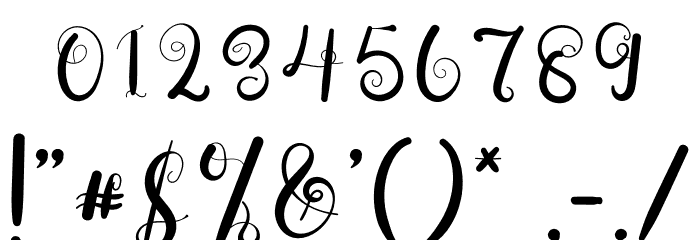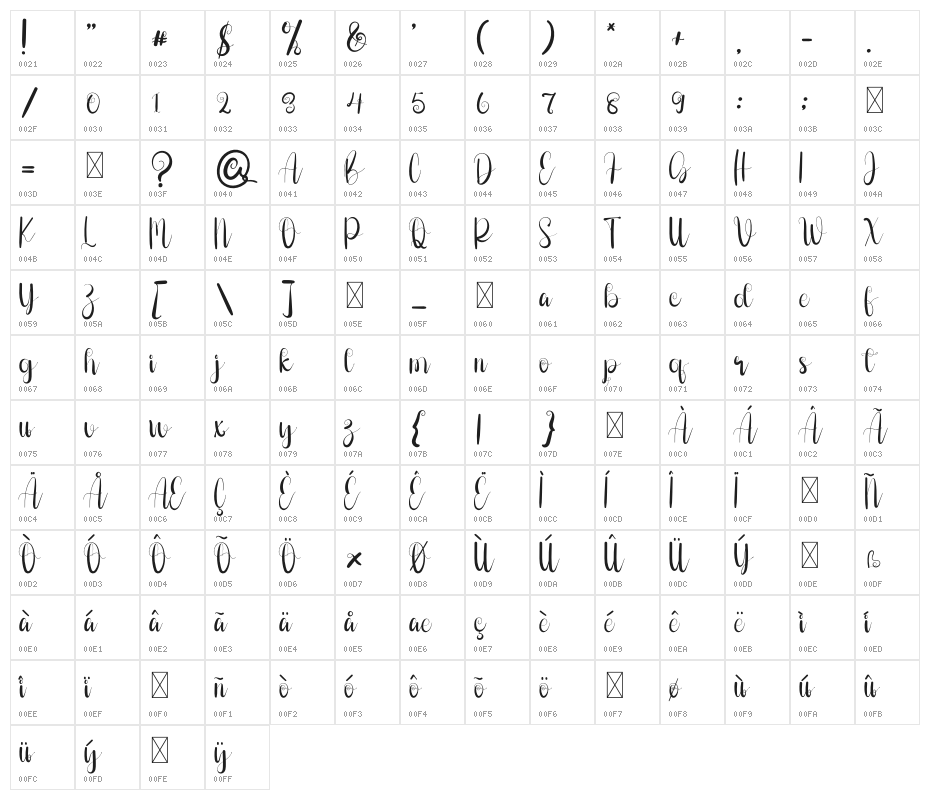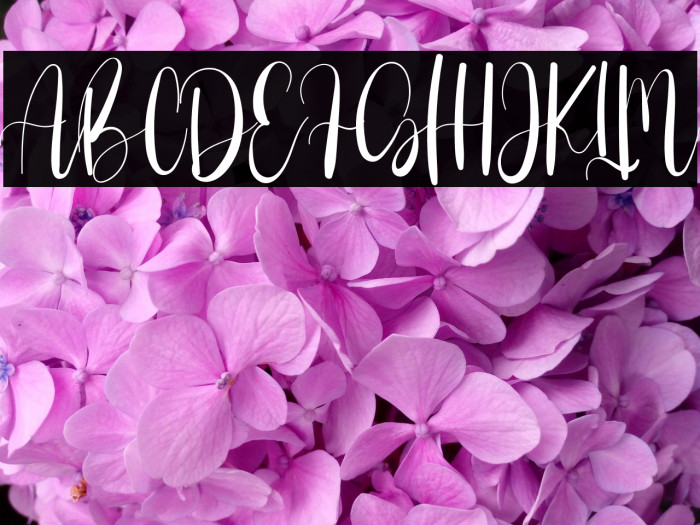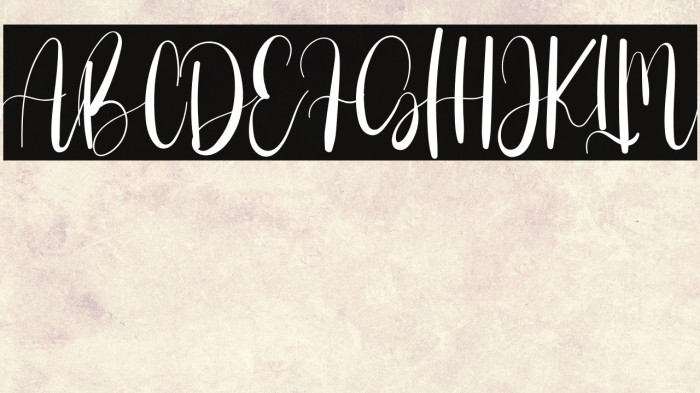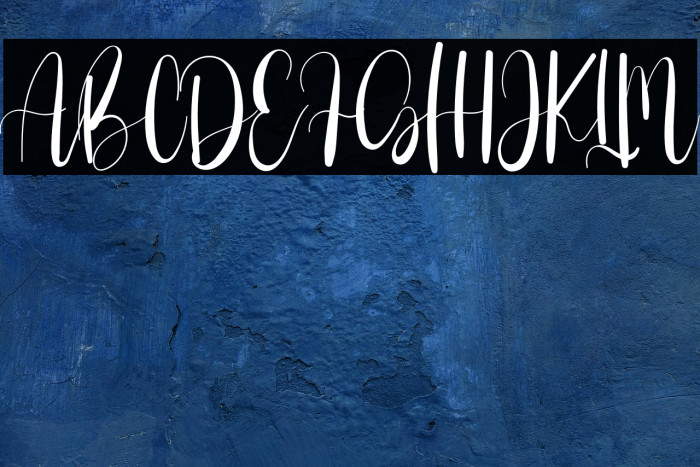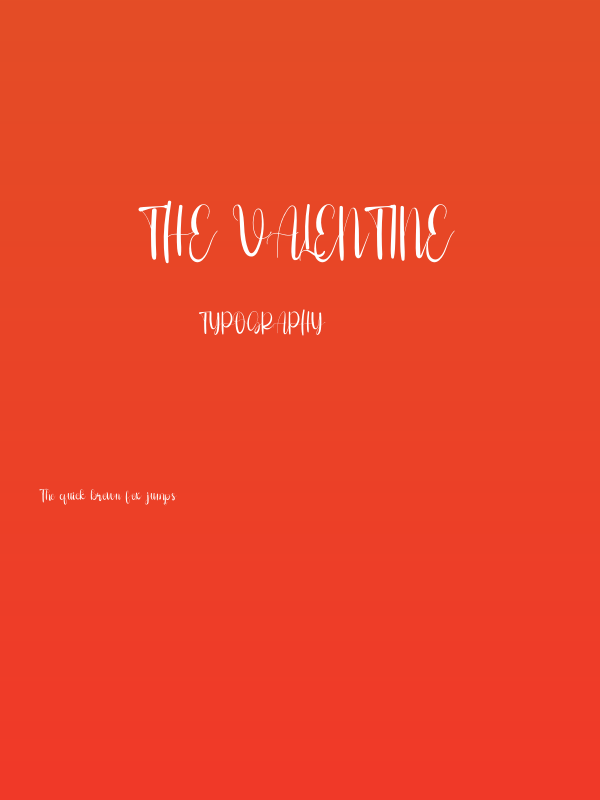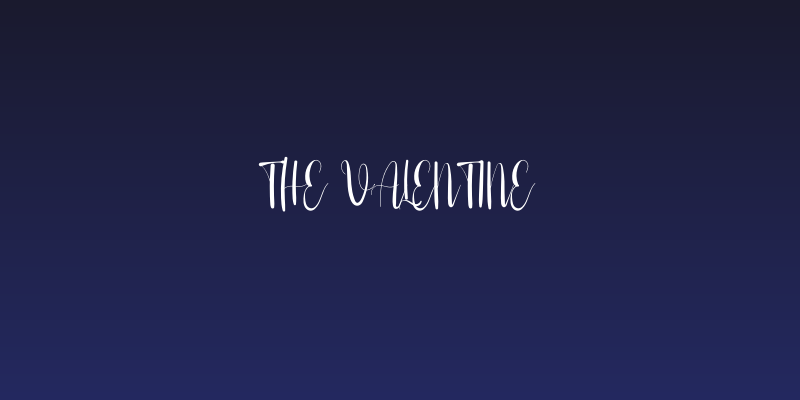
The Valentine Font
The Valentine Description
This font features an elegant and flowing script style, characterized by its intricate swirls and loops. Each letter is crafted with a sense of fluidity and grace, making it ideal for designs that require a touch of sophistication and romance. The uppercase letters are particularly ornate, with extended flourishes that add a dramatic flair. The lowercase letters maintain a consistent style, with gentle curves and a slightly playful touch. Numbers and special characters are designed to match the overall aesthetic, ensuring a cohesive look across all text elements.
| Proposed Projects | Ideal for wedding invitations, greeting cards, branding projects, and any design that requires a romantic or elegant touch. |